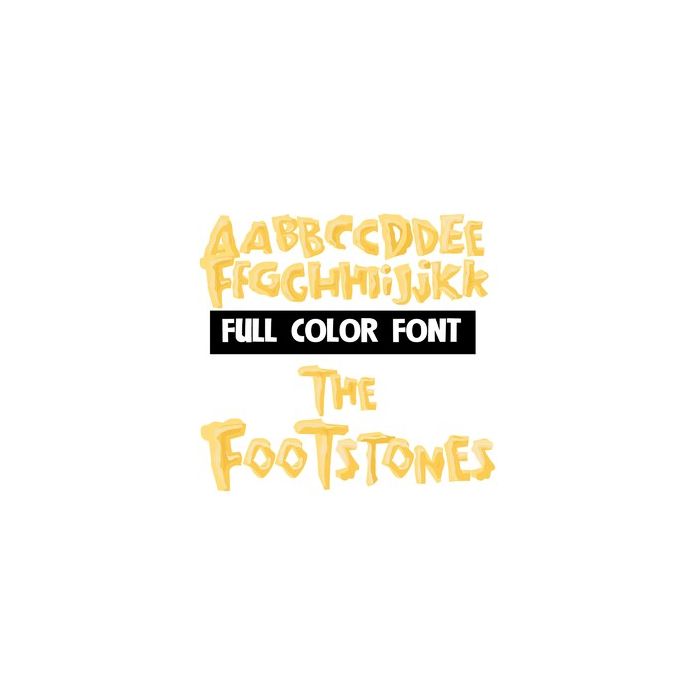
The Footstones Color Font
This full-color font features rock-like lettering. This font works best for titles, displays, posters and more. Please note color fonts will show as black in non compatible programs. This font type is compatible with Silhouette Studio